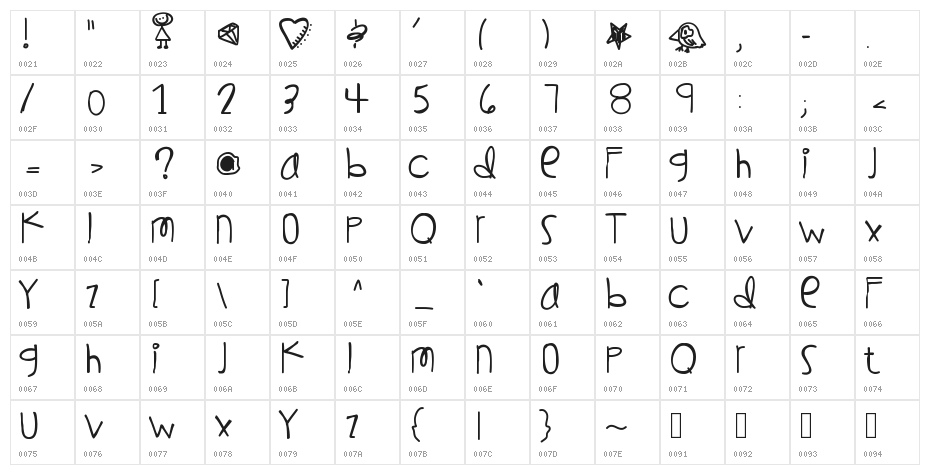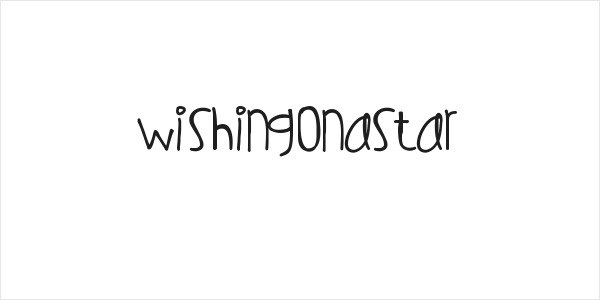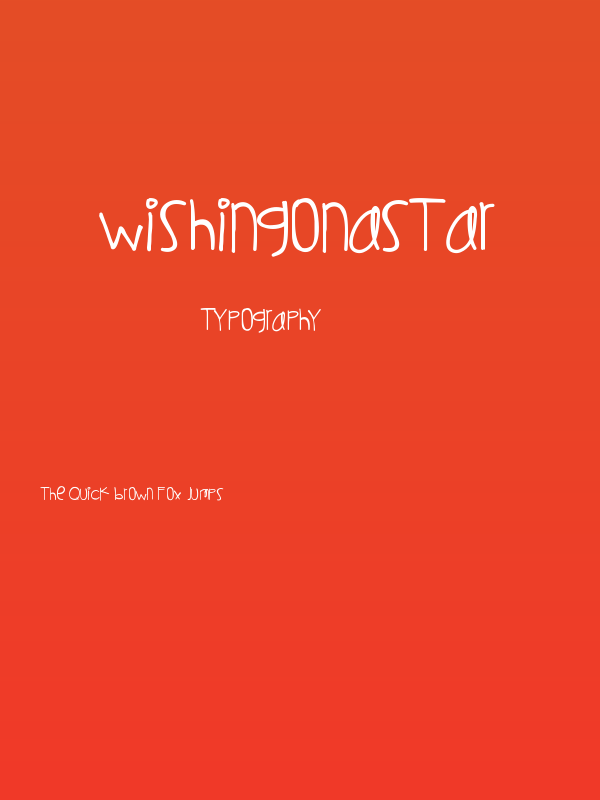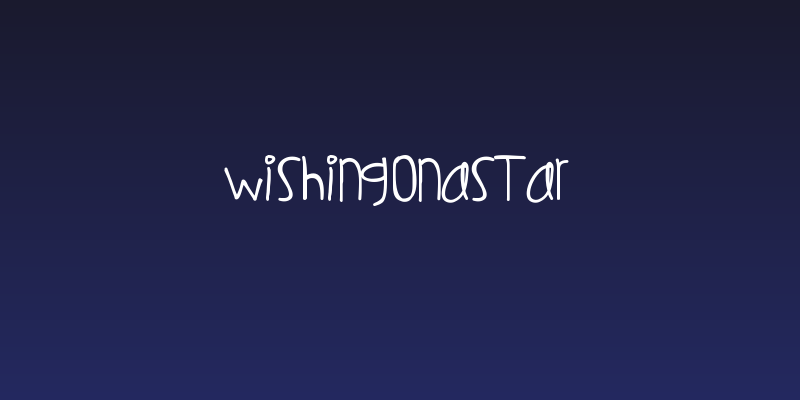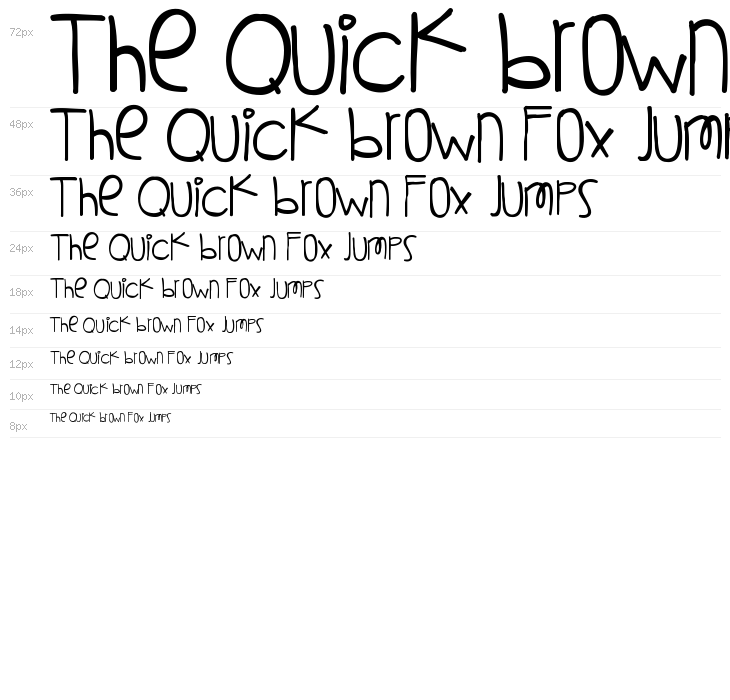
WishingOnAStar Font
WishingOnAStar Description
This playful and whimsical font features a handwritten style with a casual and friendly appearance. The letters are slightly irregular, giving it a charming, informal feel. The strokes are consistent in width, providing a uniform look across all characters. The font includes both uppercase and lowercase letters, numbers, and a variety of special characters, making it versatile for different uses. The overall design is reminiscent of doodles or sketches, adding a personal touch to any project.
| Overall Style | Whimsical |
| Use Case | Logos, Greeting cards, Children's books |
| Proposed Projects | Ideal for children's books, greeting cards, playful branding, and creative projects that require a personal touch. |